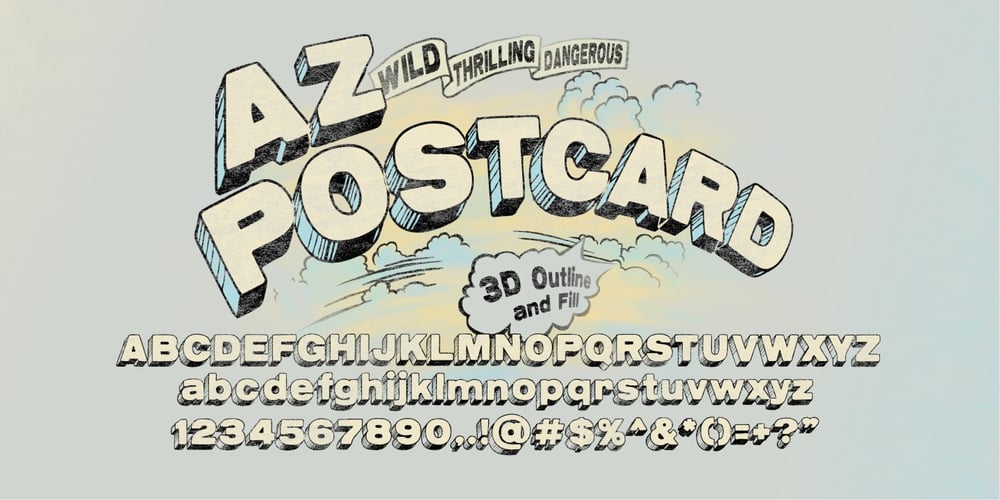
AZ Postcard 3D
AZ Postcard 3D font
AZ Postcard 3D Font Family was designed by published by Artist of Design. AZ Postcard 3D contains 2 styles and family package options. AZ Postcard was inspired from a need to develop a sans serif 3D typeface with a vintage hand drawn feel to it. This font was designed for use as a fun bold headline or sub headline.